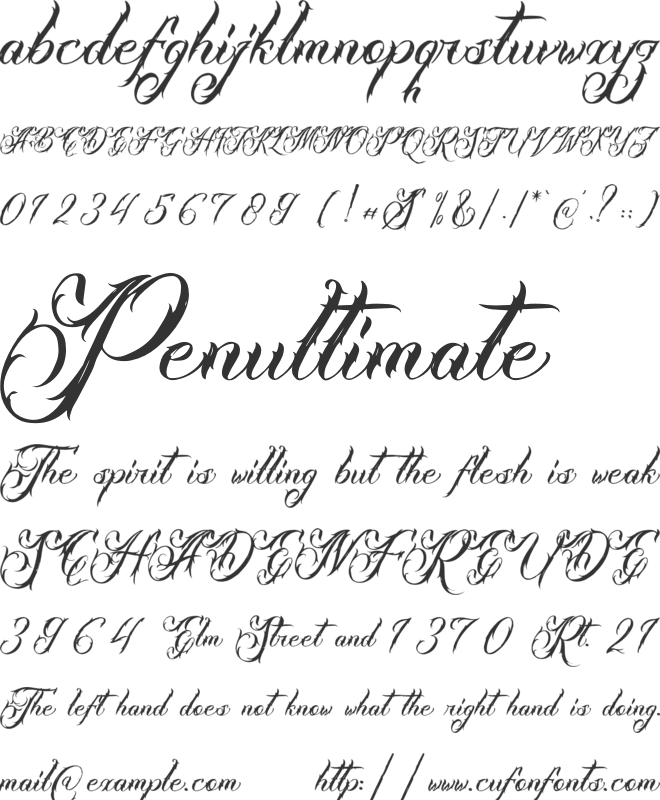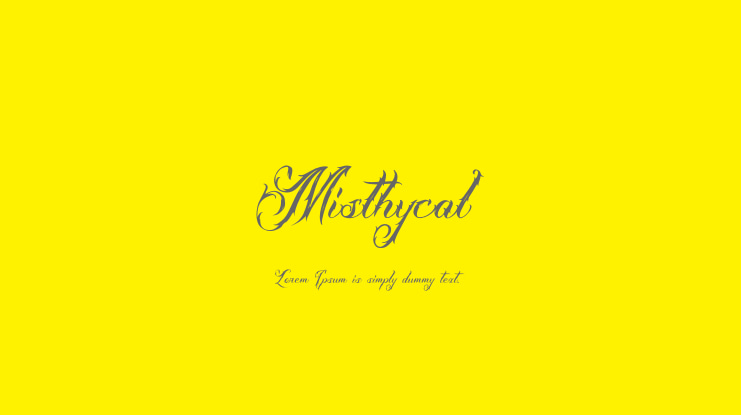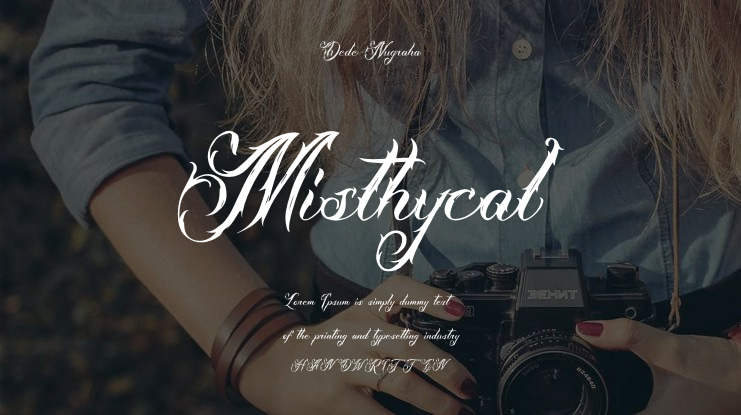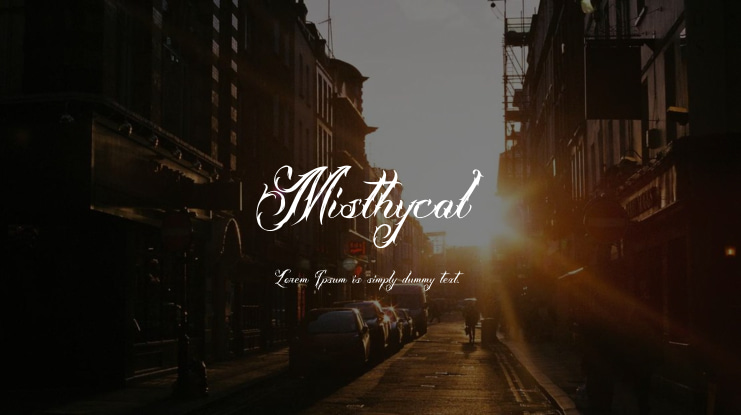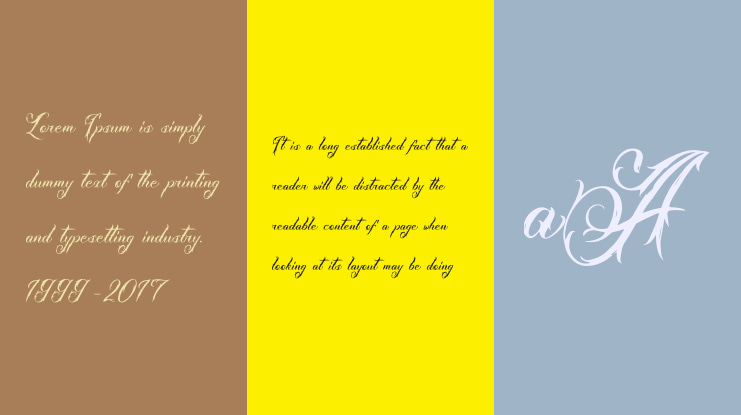
Misthycal | Tattoo Style is suitable for any projects such as: logos, branding projects, homeware designs, product packaging, mugs, quotes, posters, shopping bags, t-shirts, book covers, name card, invitation cards, greeting cards, label, photography, watermark, special events, and all your other lovely projects that need a elegant tattoo script taste.